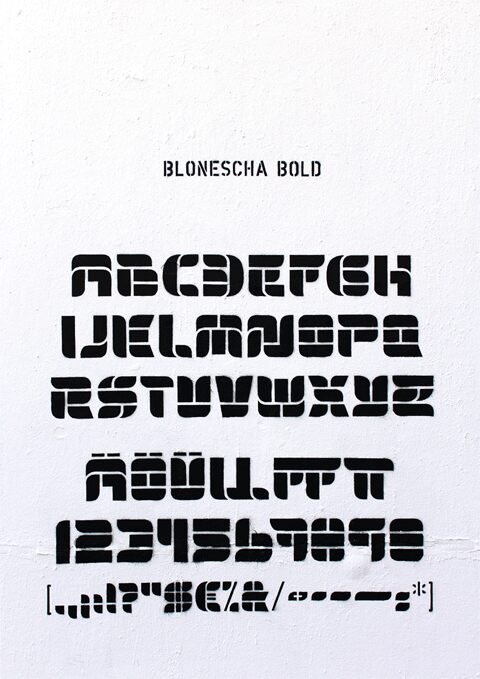
Blonescha Bold is a free, broad techno display font. Its weighty letters stretch sideways, with rounded outer corners and repeated horizontal cuts that make the forms resemble a continuous mechanical track.
Digital graphics are its most convincing setting, since the unusually wide construction can turn a title card into something close to a sleek interface panel. It also suits electronic music artwork, game branding, printed merchandise, and futuristic event posters, where the segmented lettering can become part of the graphic system rather than ordinary type. The recurring bands and joined shapes point directly toward science fiction, arcade hardware, and machine-themed imagery.